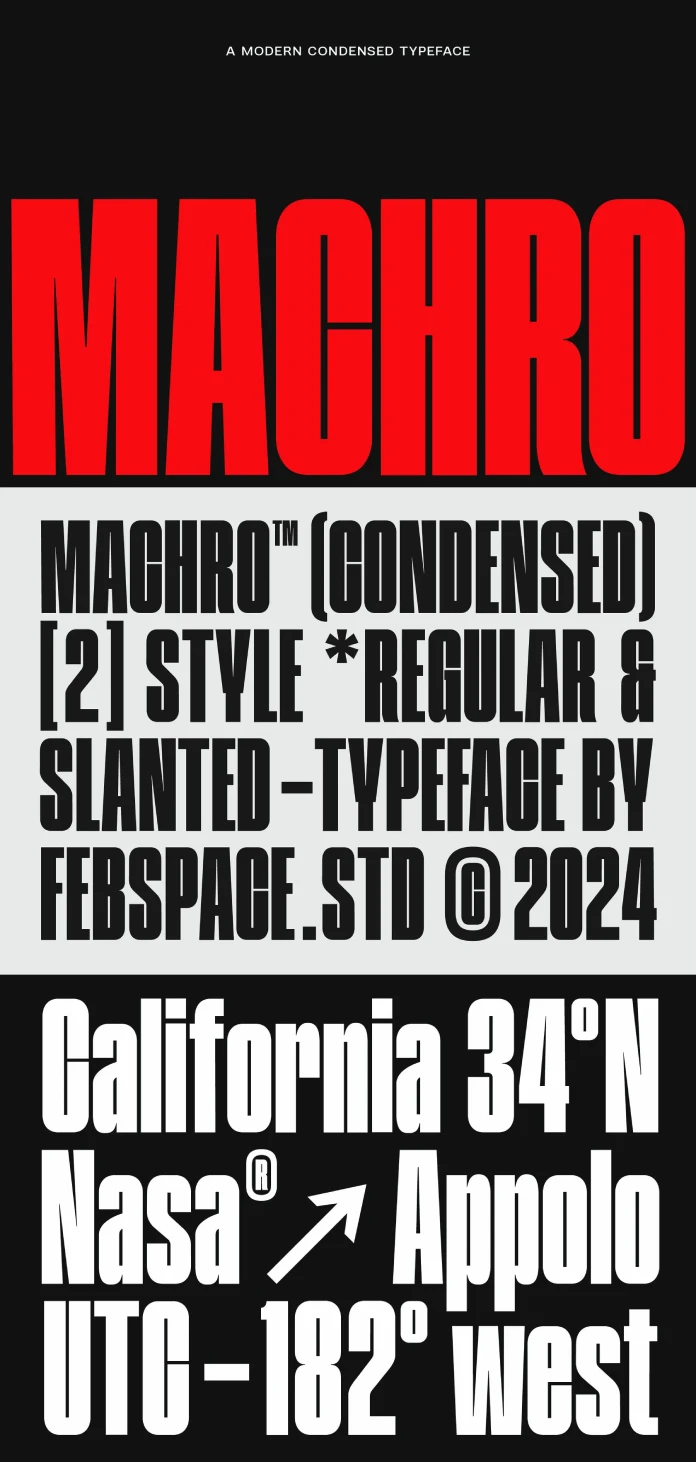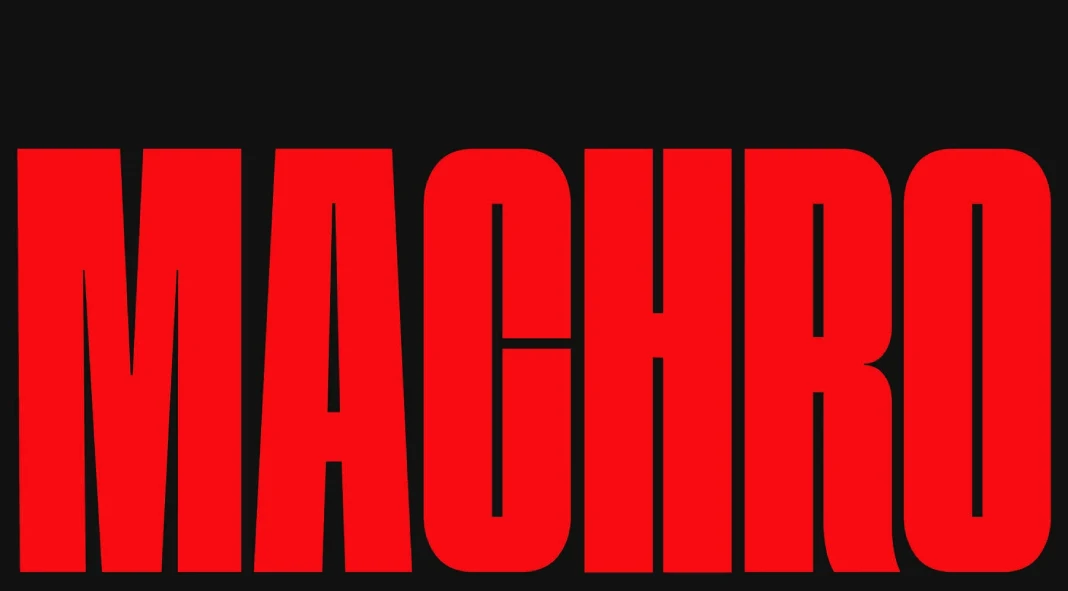
Febspace Studio’s FBS Machro is a bold but condensed typeface that redefines modern design.
Febspace Studio has introduced a powerful addition to contemporary typefaces with FBS Machro. Known for its condensed, modern aesthetic, this font seamlessly blends strength and sophistication. Available in both Regular and Slanted styles, FBS Machro is purposefully crafted to enhance visual impact in print and digital applications. Here’s an in-depth look at what makes this typeface a standout in today’s design landscape.
Strength and Versatility at Its Core
FBS Machro Condensed is designed to convey strength. Its bold, narrow characters are constructed with precision, allowing it to command attention without overpowering a layout. The Regular style serves as an excellent choice for body text, offering clean lines that maintain readability even in smaller sizes. Meanwhile, the Slanted style injects a dynamic energy, perfect for headings or focal design elements that need to stand out. This duality makes FBS Machro versatile, and adaptable for a range of design scenarios.
Modern Design with a Touch of Elegance
What sets FBS Machro apart is its ability to marry a contemporary look with subtle elegance. The font’s condensed structure allows designers to make the most of limited space while maintaining clear, sharp details. This balance of compactness and clarity results in a font that feels modern but not sterile—elegant without losing its bold edge. Designers working on projects from branding to posters will find that this typeface contributes a professional touch, effortlessly elevating the overall aesthetic.
Ideal Applications for Print and Digital
FBS Machro Condensed proves its value in both print and digital media. Its highly legible design means it can be used effectively in various contexts, from brochures and magazine layouts to website headers and social media graphics. The font’s Regular style works exceptionally well for extended text, ensuring that long reads remain comfortable for the viewer. In contrast, the Slanted style, with its forward-leaning posture, is ideal for projects where a sense of movement or urgency is desired—such as event posters, call-to-action banners, or promotional content.
Enhancing Brand Identity
When it comes to branding, consistency and memorability are paramount. FBS Machro’s strong presence can become an integral part of a brand’s visual identity. Its bold, condensed form is particularly effective for logos, slogans, and taglines, creating a lasting impression. The clear, impactful design allows for easy recognition, helping brands stand out in competitive markets.
Balancing Aesthetic and Practicality
Designers often face the challenge of finding a typeface that is both visually compelling and functional. FBS Machro addresses this by balancing aesthetic appeal with practicality. The condensed nature of the font saves space, making it an excellent choice for multi-column layouts or environments where space is limited, such as mobile interfaces or compact print designs. Despite its narrower proportions, it maintains legibility, even at reduced sizes.
A Must-Have for Modern Designers
FBS Machro Condensed by Febspace Studio is more than just a font—it’s a design tool that empowers creativity. Its blend of strength, elegance, and versatility ensures that it adapts to a variety of project needs, from branding and advertising to editorial design. The availability of both Regular and Slanted styles further enhances its functionality, providing designers with the flexibility to experiment and create striking visual compositions. For those looking to add a contemporary, dynamic typeface to their collection, FBS Machro Condensed is a compelling choice.